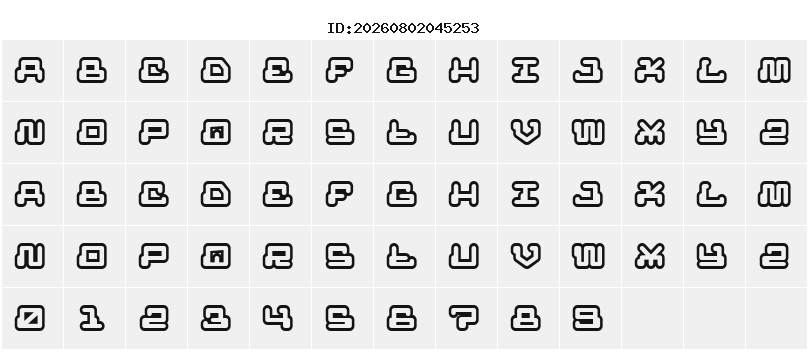
• Font Name: MR FUGLESANG OUTLINE
• Designer: Johan
• Description: DEDICATED TO MR FUGLESANG - THE FIRST SWEDE IN SPACE!
MR FUGLESANG OUTLINE.ttf is a modern, elegant sans-serif font designed for ultimate readability and visual harmony. Perfect for branding, headlines, web design, and print materials.